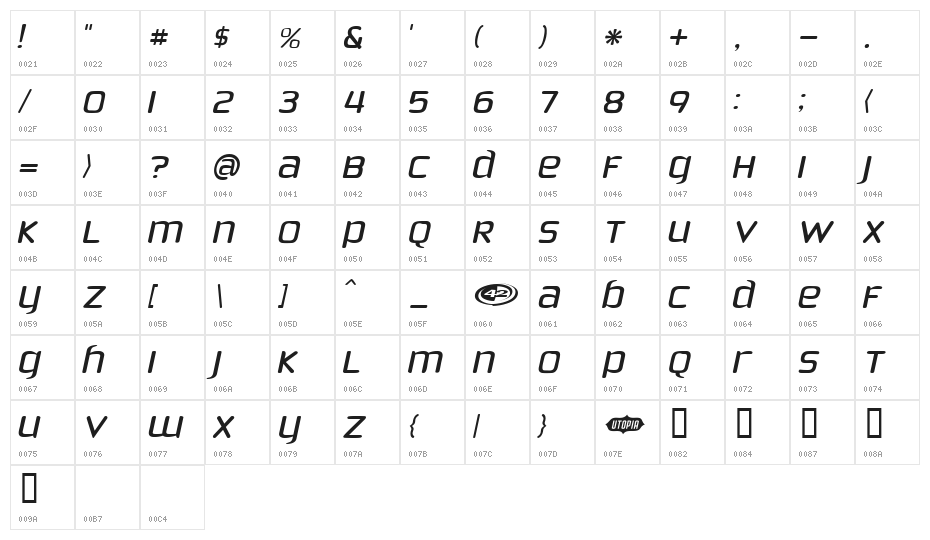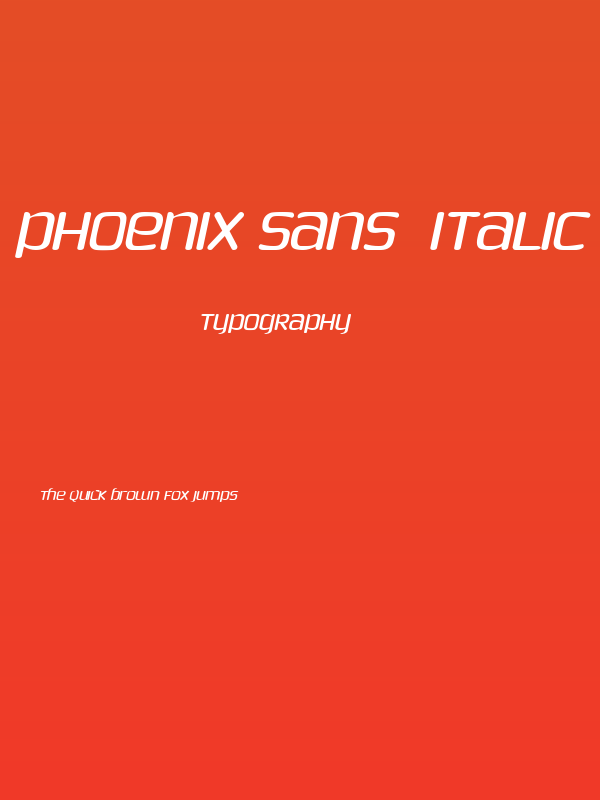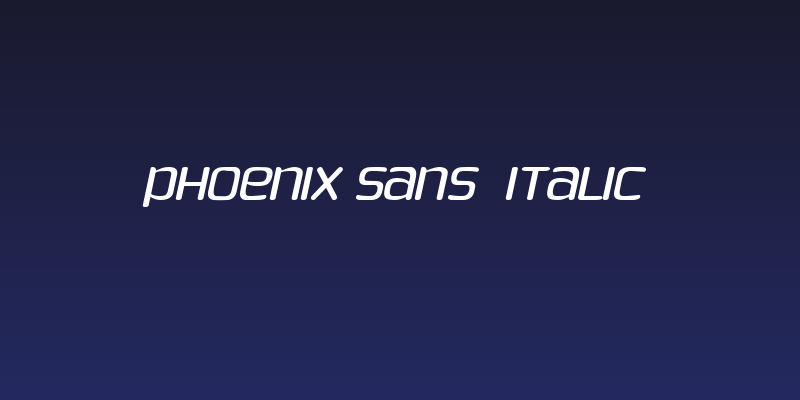
Phoenix Sans Italic Font
Phoenix Sans Italic Description
This font exhibits a sleek, modern design with a distinct italic slant, giving it a dynamic and forward-moving appearance. The characters are crafted with smooth curves and clean lines, providing a sense of fluidity and elegance. The sans-serif style ensures readability and simplicity, while the italicization adds a touch of sophistication and flair. The numerals and special characters maintain the same stylistic features, ensuring consistency across all elements. This font is versatile, suitable for both digital and print media, and can effectively convey a contemporary and professional tone.
| Proposed Projects | Ideal for branding, advertising, modern web design, and editorial layouts. |